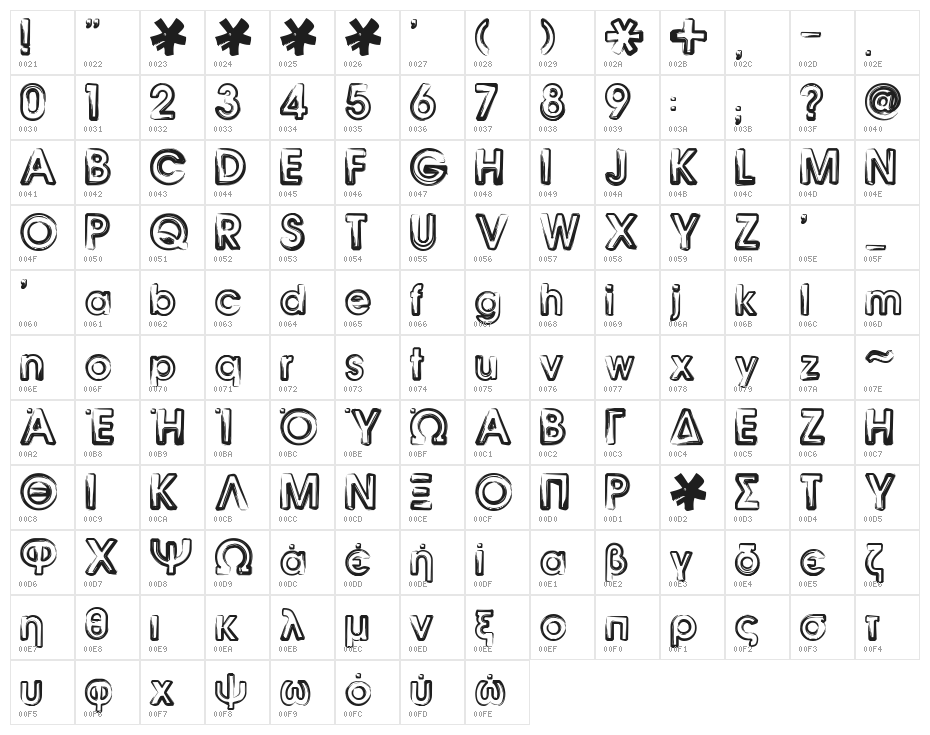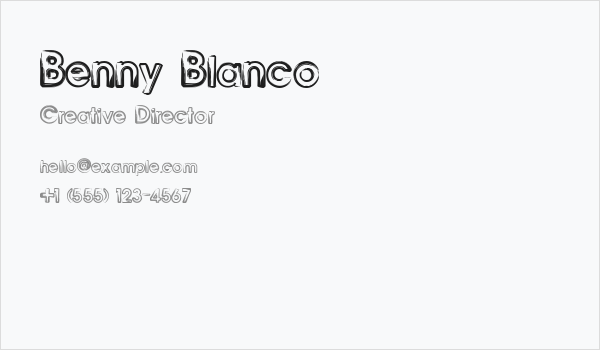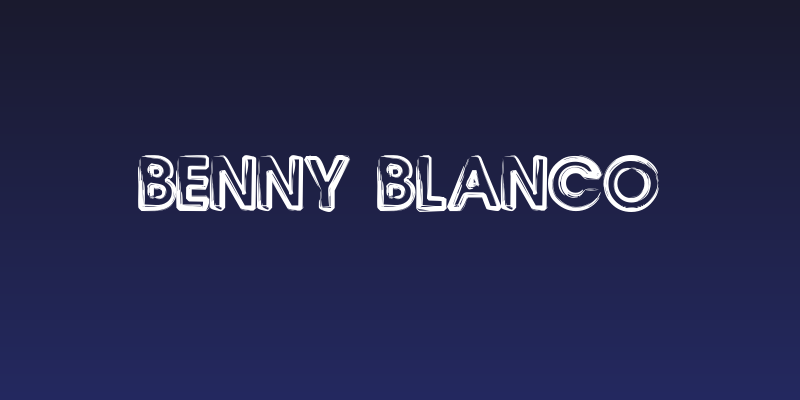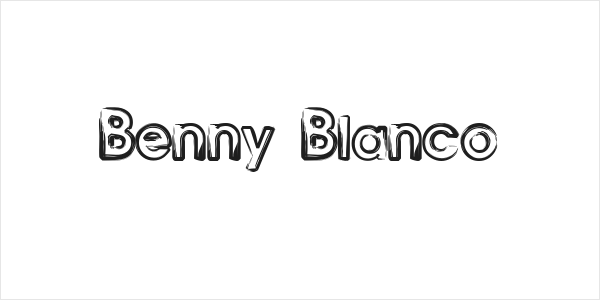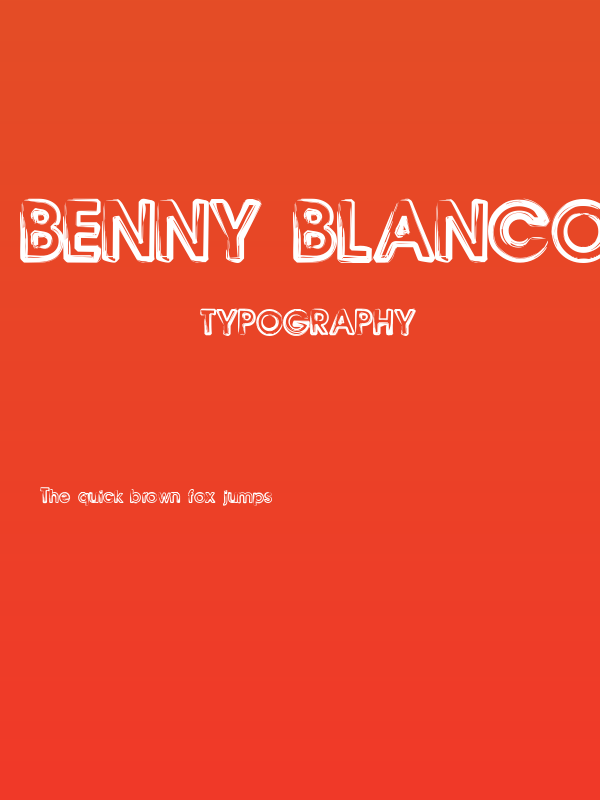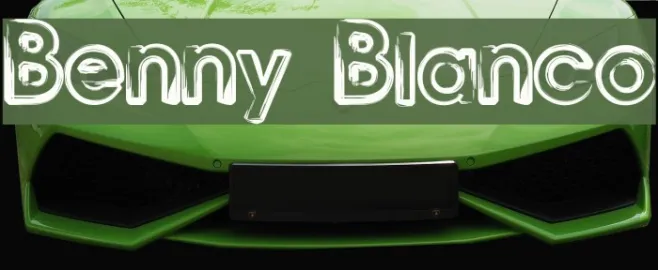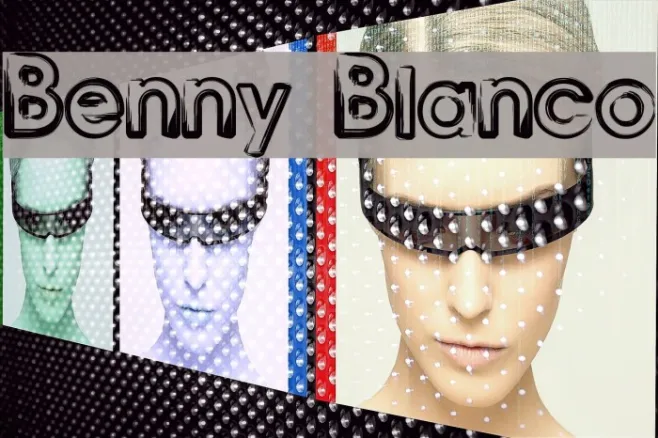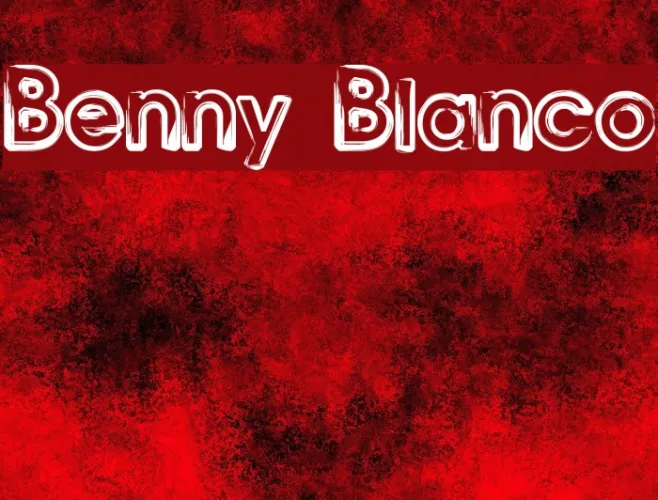
Benny Blanco Font
Benny Blanco Description
This font features a bold, three-dimensional appearance with a playful and dynamic style. The letters are outlined with a thick, shadow-like effect that gives them depth and a sense of movement. The uppercase and lowercase characters maintain a consistent width, creating a cohesive look. The numbers and special characters follow the same design principles, ensuring uniformity across all glyphs. The font's unique style makes it stand out, with a modern and artistic flair that is both eye-catching and versatile.
| Proposed Projects | Ideal for projects that require a bold statement, such as posters, logos, and branding materials. Its unique style is also suitable for creative designs like album covers and event invitations. |